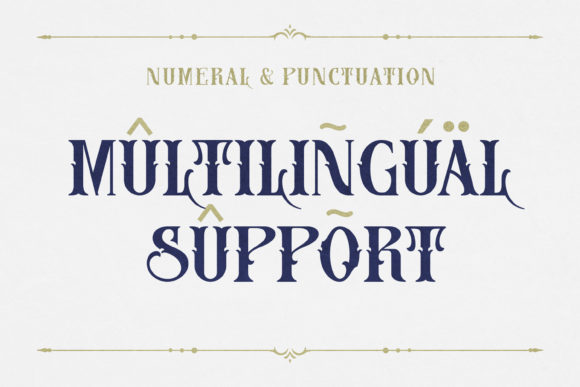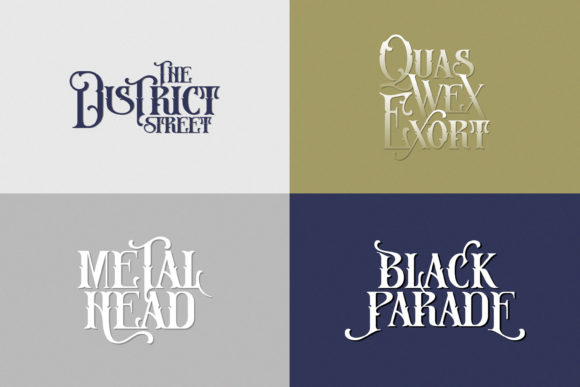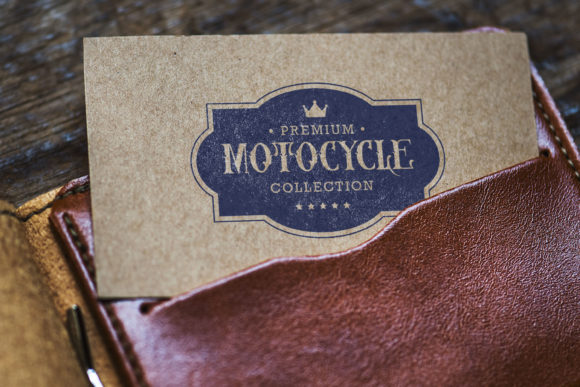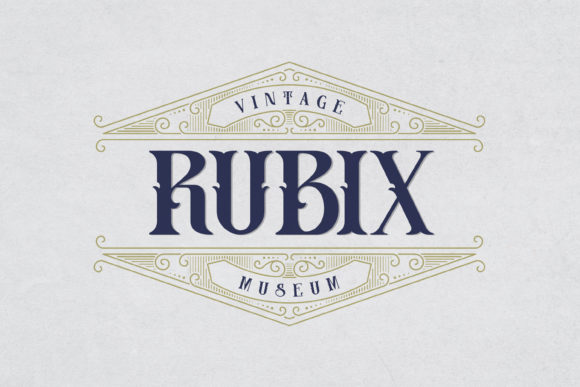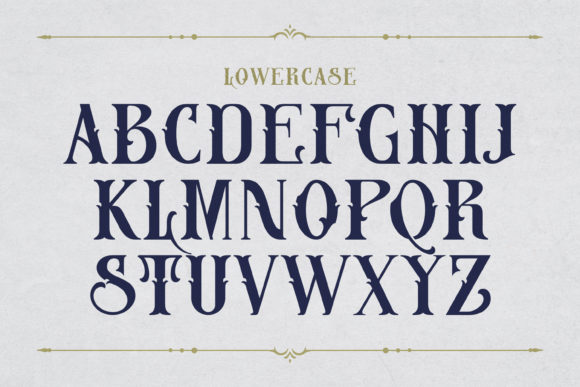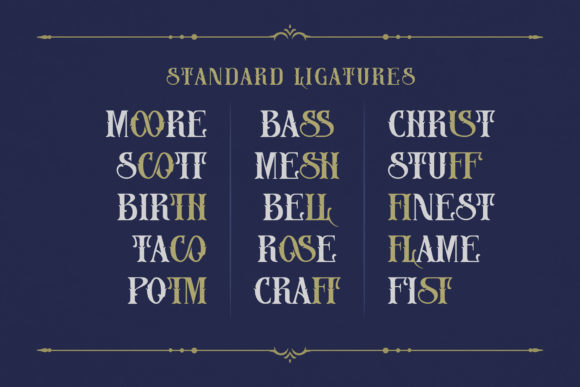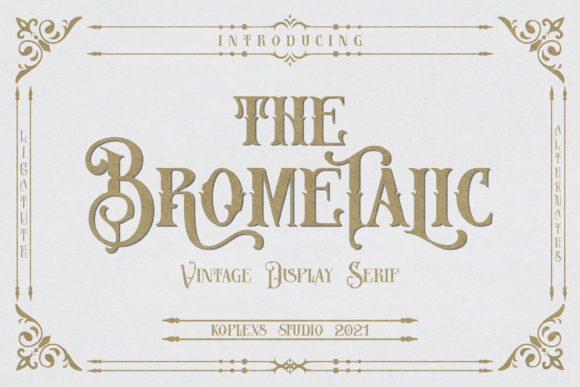
Brometalic Font: Elevate Your Creations with Elegance and Sophistication
In the world of typography, a font can make or break a design. A well-chosen font can elevate a project from ordinary to extraordinary, while a poorly chosen one can detract from the overall impact. For designers and crafters looking to add a touch of elegance and sophistication to their creations, look no further than the Brometalic Font. This highly detailed and chic display font is sure to impress, with its unique blend of refinement and distinctiveness.
What is Brometalic Font?
Brometalic Font is a stunning display font that exudes luxury and refinement. Its intricate details and elegant lines make it perfect for a wide range of creative projects, from branding and advertising to packaging and editorial design. Whether you’re looking to create a sophisticated logo, a beautiful poster, or a stylish social media graphic, Brometalic Font is the perfect choice.
Key Features of Brometalic Font
So, what sets Brometalic Font apart from other fonts? Here are just a few of its key features:
- Highly Detailed and Chic Design: Brometalic Font boasts an intricate and refined design that is sure to impress. Its elegant lines and curves make it perfect for creating sophisticated and eye-catching designs.
- Elegant and Distinct: This font is both elegant and distinct, making it perfect for designers and crafters looking to create unique and memorable designs.
- PUA Encoded: Brometalic Font is PUA (Private Use Area) encoded, which means that you can access all of the glyphs and swashes with ease. This makes it easy to customize your designs and add your own personal touch.
Why Choose Brometalic Font?
With so many fonts to choose from, why should you choose Brometalic Font? Here are just a few reasons:
- Elevate Your Designs: Brometalic Font is sure to elevate your designs and take them to the next level. Its elegant and sophisticated design makes it perfect for creating high-end designs that will impress your clients or audience.
- Versatile: This font is versatile and can be used for a wide range of creative projects, from branding and advertising to packaging and editorial design.
- Easy to Use: Brometalic Font is easy to use, even for designers and crafters who are new to font design. Its PUA encoding makes it easy to access all of the glyphs and swashes, and its clear and concise documentation makes it easy to get started.